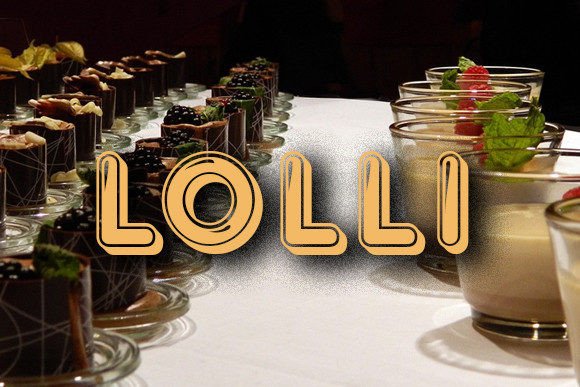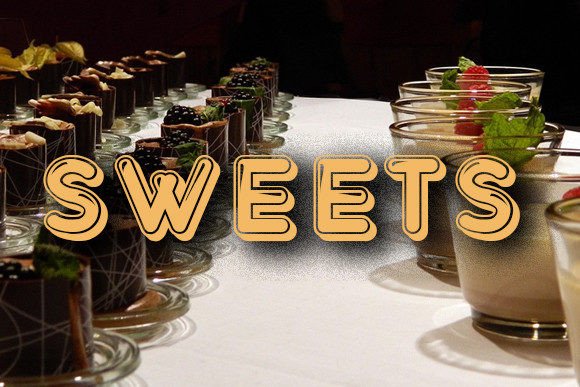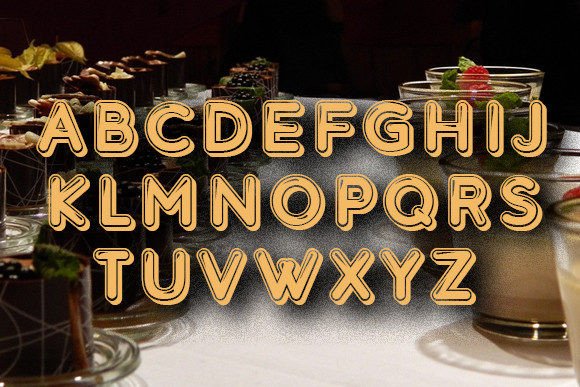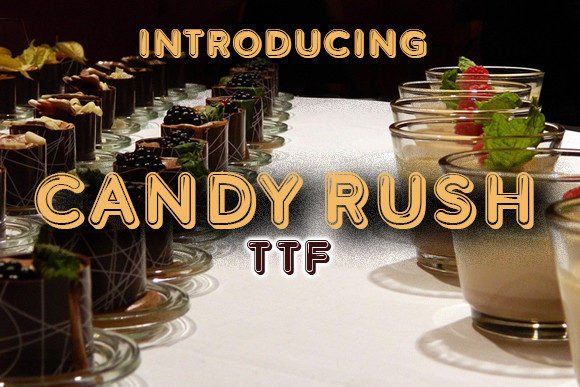
Candy Rush Font: The Sweetest Addition to Your Design Collection
Are you tired of using the same old fonts in your designs? Look no further! Introducing Candy Rush, an awesome and bubbly display font that’s sure to elevate each of your creative projects. With its playful and eye-catching style, Candy Rush is the perfect addition to your font collection.
What Makes Candy Rush So Special?
Candy Rush is more than just a font – it’s a statement piece. Its unique and whimsical design is sure to grab attention and make your designs stand out from the crowd. Whether you’re working on a logo, poster, or social media graphic, Candy Rush is the perfect choice for adding a touch of fun and personality to your work.
Key Features of Candy Rush Font
- Bubbly and Playful Design: Candy Rush has a fun and bubbly design that’s perfect for creating eye-catching headlines and titles.
- Display Font: This font is specifically designed for display purposes, making it perfect for large-scale designs such as posters, billboards, and social media graphics.
- Elegant and Whimsical: Candy Rush has an elegant and whimsical feel that’s sure to add a touch of sophistication to your designs.
- Easy to Read: Despite its playful design, Candy Rush is easy to read and understand, making it perfect for use in a variety of design applications.
- Logos and Branding: Use Candy Rush to create a fun and memorable logo for your business or brand.
- Posters and Flyers: Add a touch of whimsy to your posters and flyers with Candy Rush.
- Social Media Graphics: Use Candy Rush to create eye-catching social media graphics that will grab attention and drive engagement.
- Invitations and Party Decor: Candy Rush is perfect for creating fun and festive invitations and party decor.
Why Designers and Crafters Love Candy Rush Font
Candy Rush has quickly become a favorite among designers and crafters, and for good reason. Here are just a few reasons why:
- Unique Design: Candy Rush has a unique and eye-catching design that’s sure to make your designs stand out.
- Versatile: Candy Rush can be used in a variety of design applications, from logos and branding to posters and social media graphics.
- Fun and Playful: This font adds a touch of fun and playfulness to any design, making it perfect for projects that require a bit of whimsy.
Get Ready to Elevate Your Designs with Candy Rush Font
In conclusion, Candy Rush is an awesome and bubbly display font that’s perfect for designers and crafters who want to add a touch of fun and personality to their work. With its unique design, ease of use, and versatility, Candy Rush is sure to become a favorite in your font collection. So don’t wait – add Candy Rush to your creative projects today and make them outstanding!